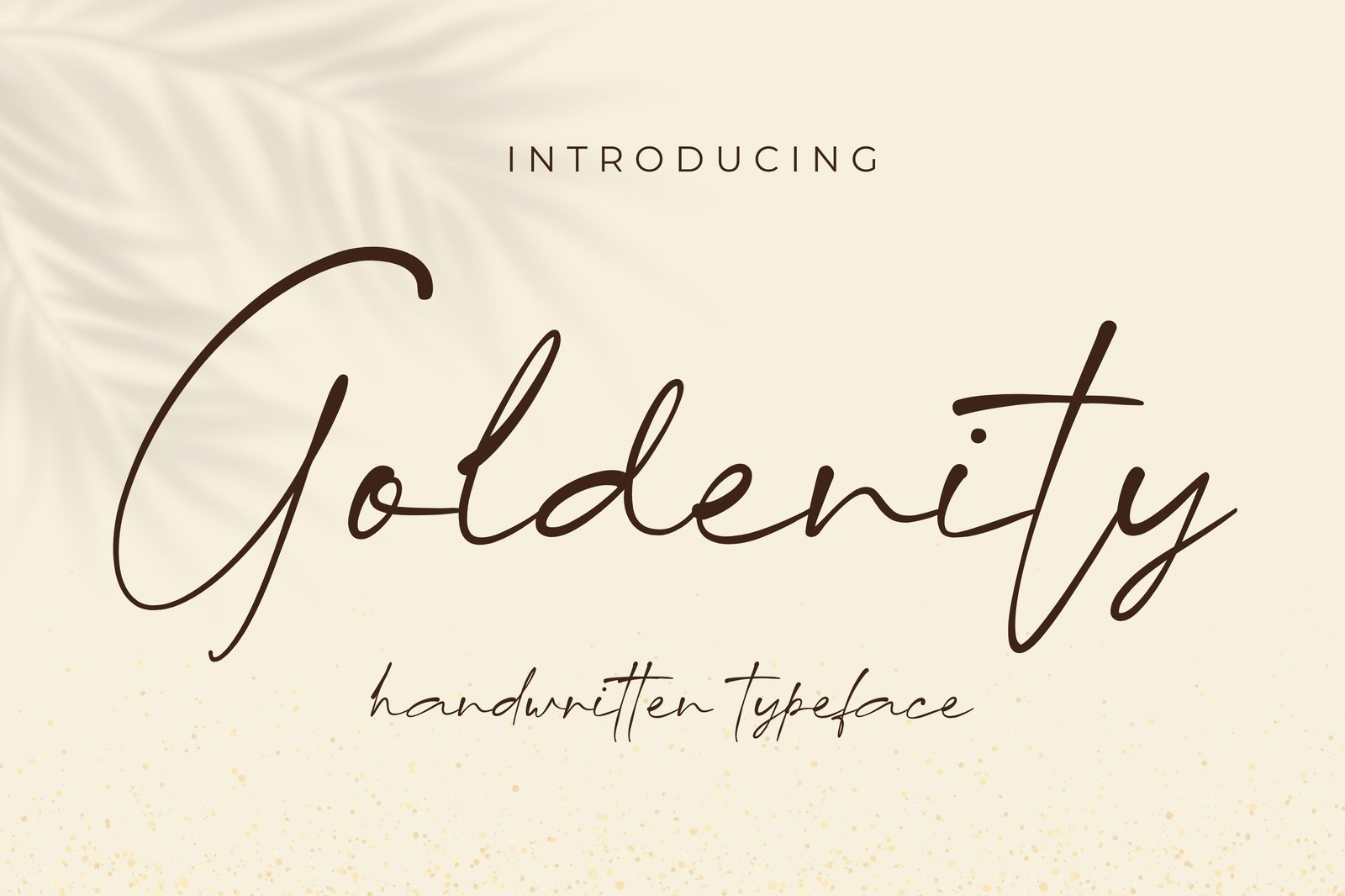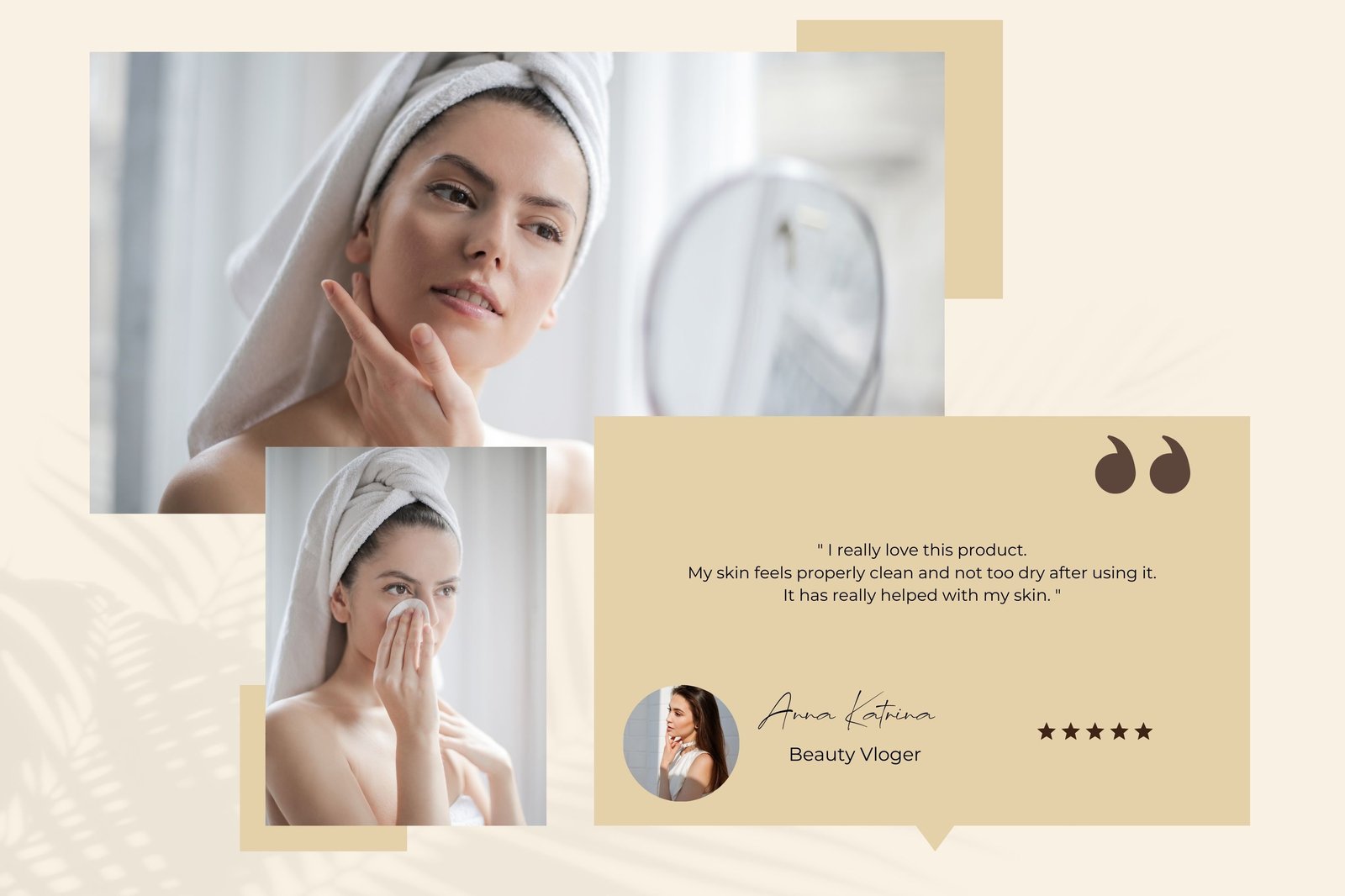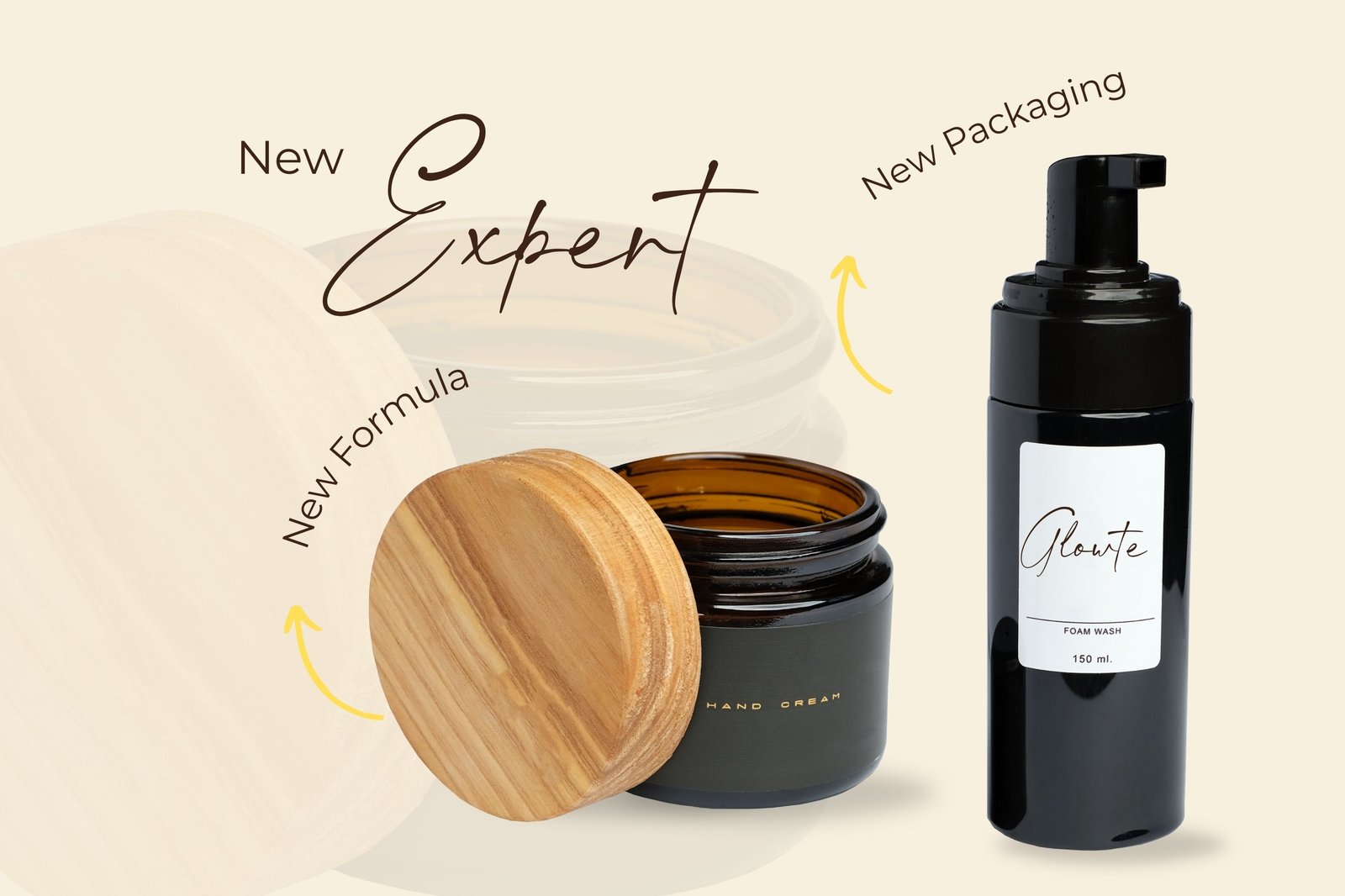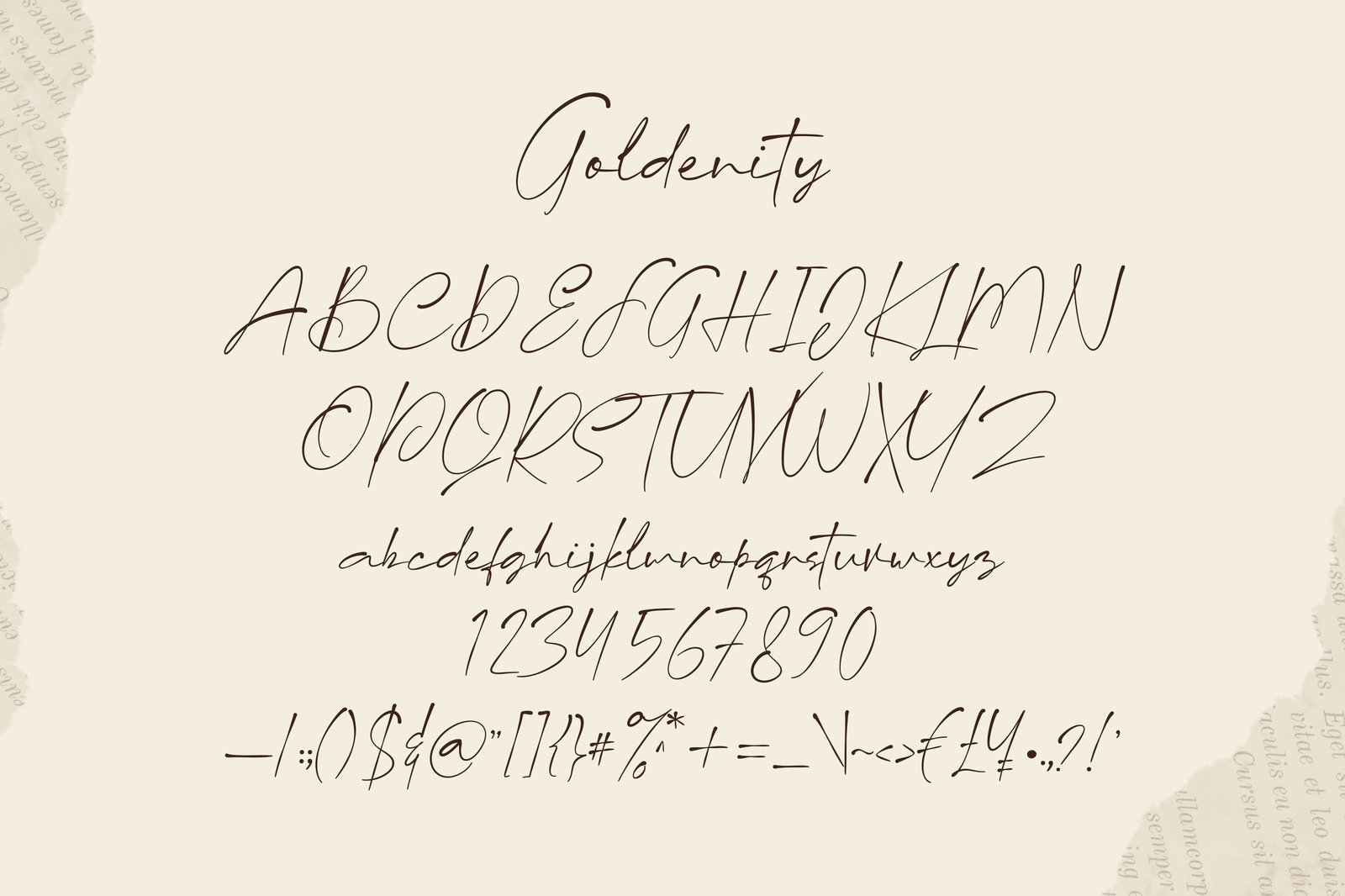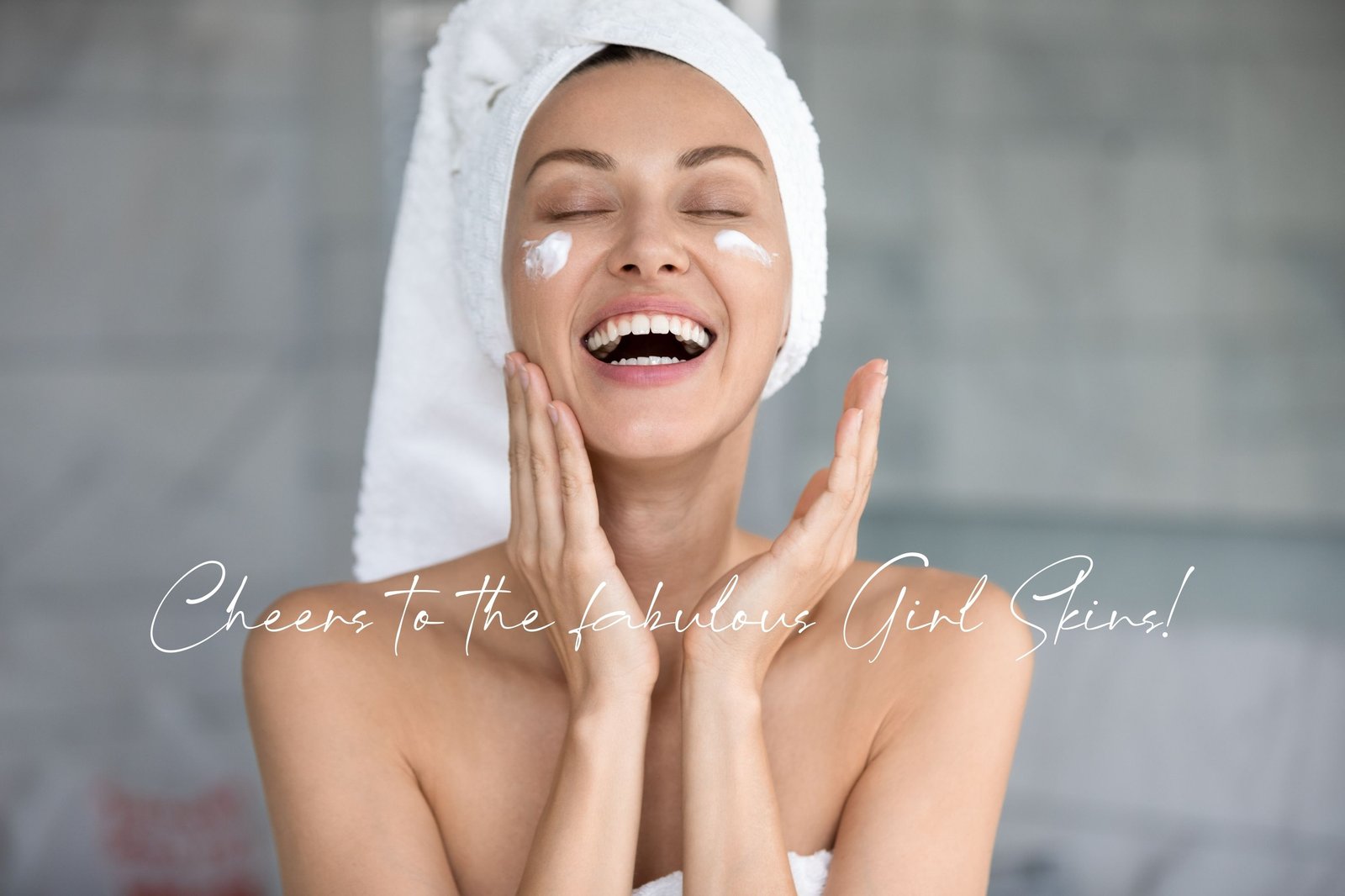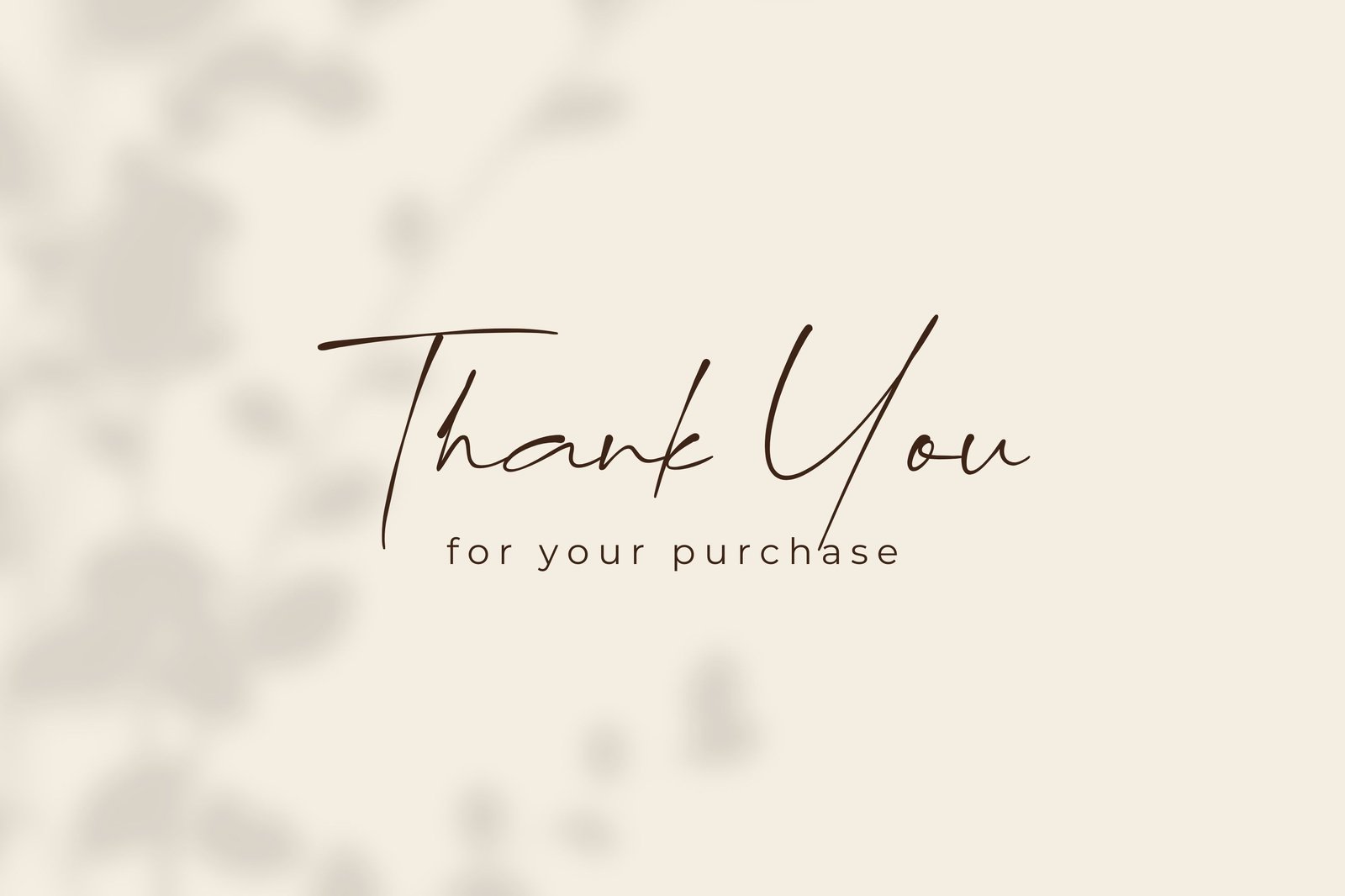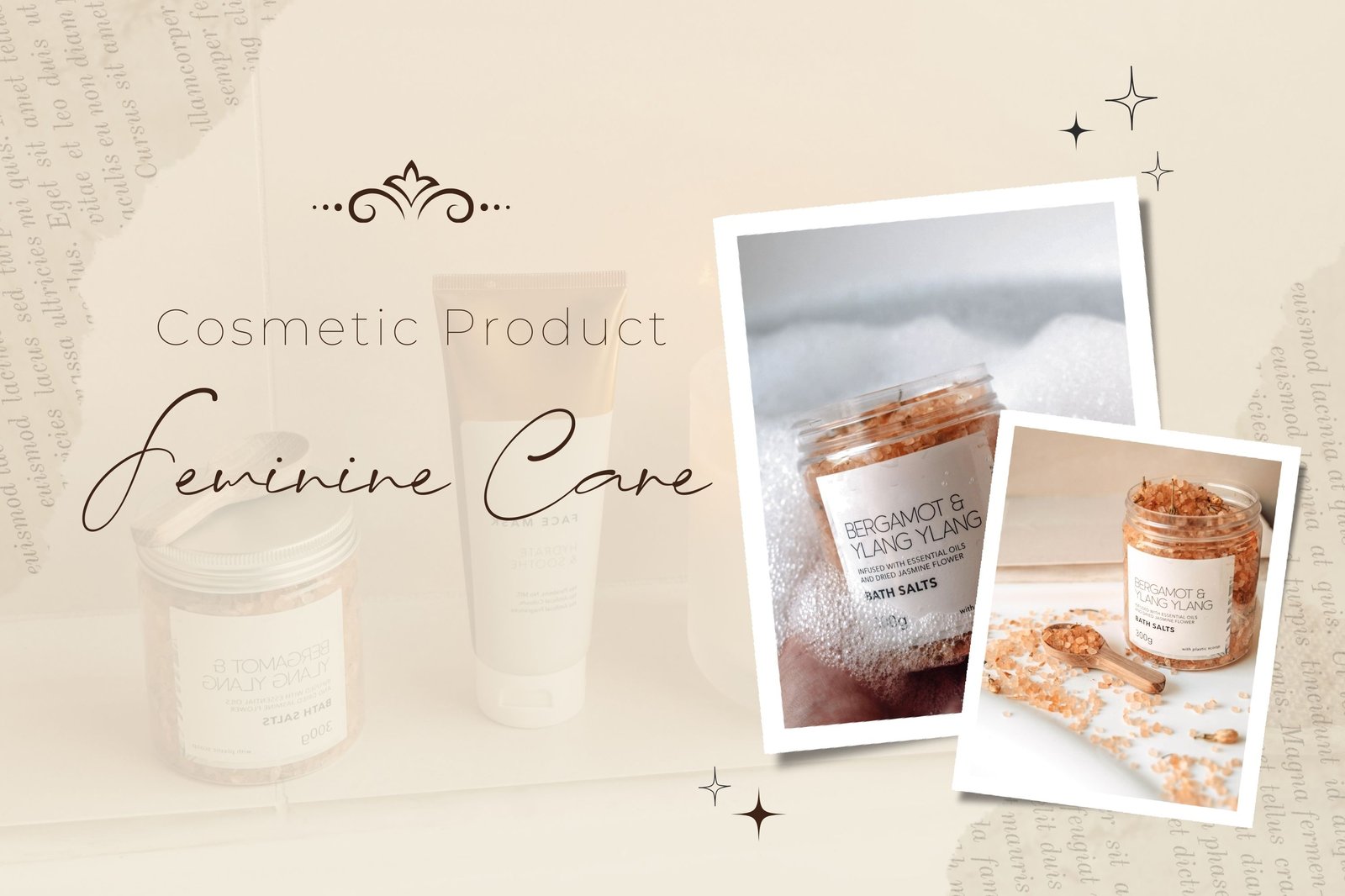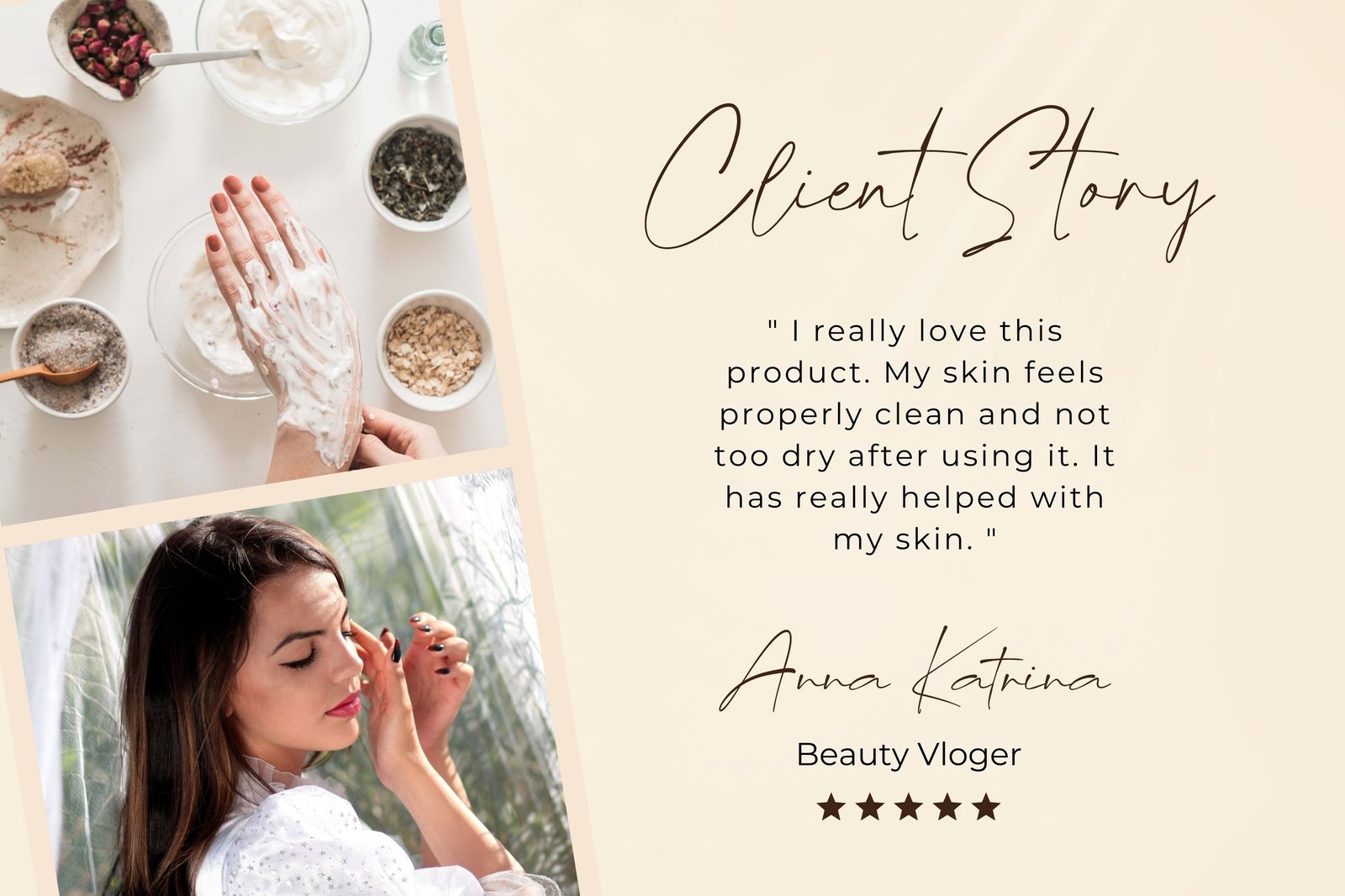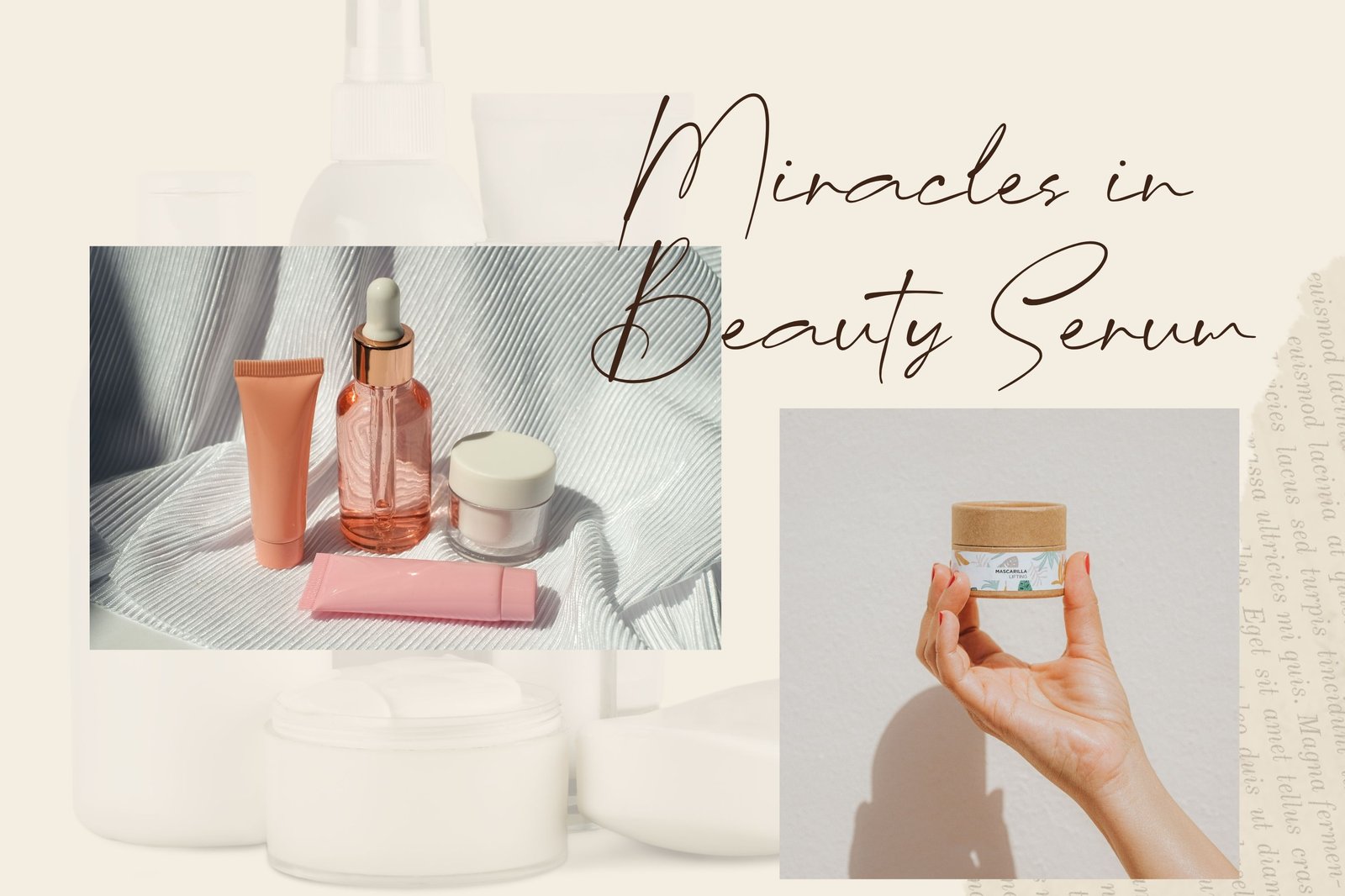
Goldenity Font
Discover Goldenity Font, a modern handwritten font with ligatures for a natural handwriting look. Goldenity is perfect for wedding invitations, wedding calligraphy, feminine or organic logos, small business branding, packaging, and more!